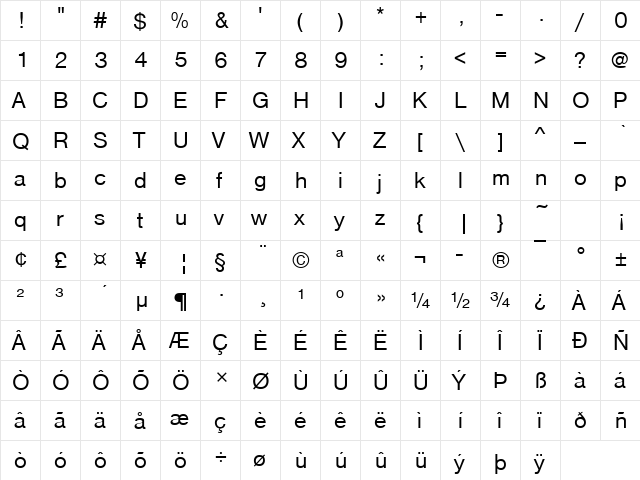
NimbusSanD Regular
Design Context for NimbusSanD Typeface
NimbusSanD offers clean, dependable letterforms without strong stylistic allegiance, making it a practical choice for designers who need flexibility.
Pro Tip: Pair NimbusSanD with a font of contrasting weight or personality to build a more expressive typographic hierarchy.